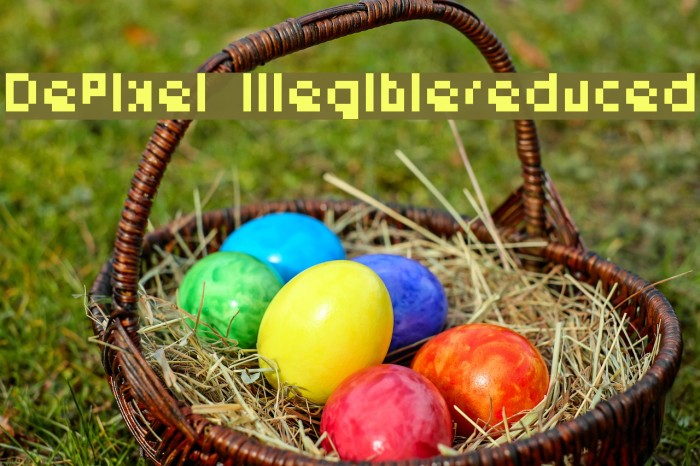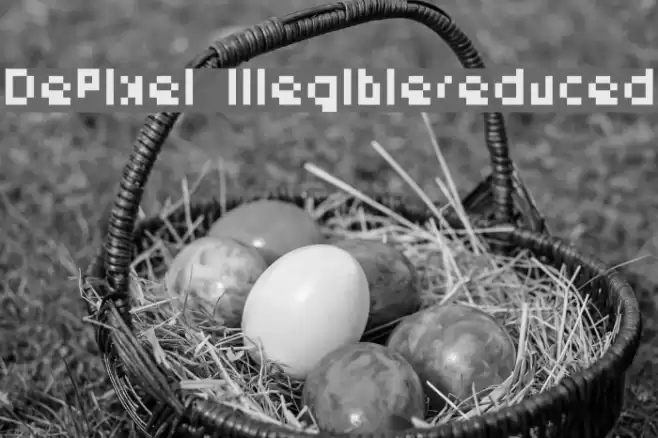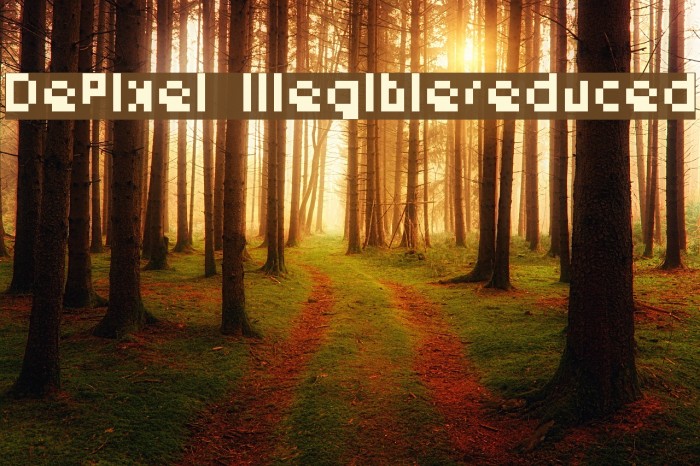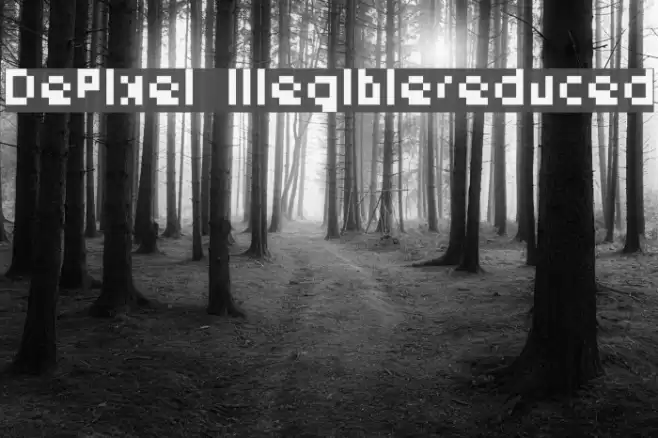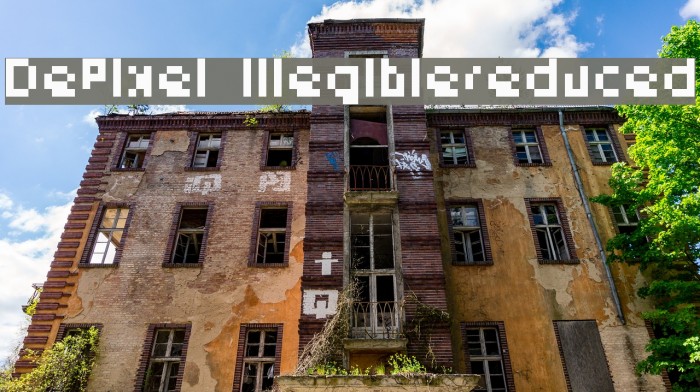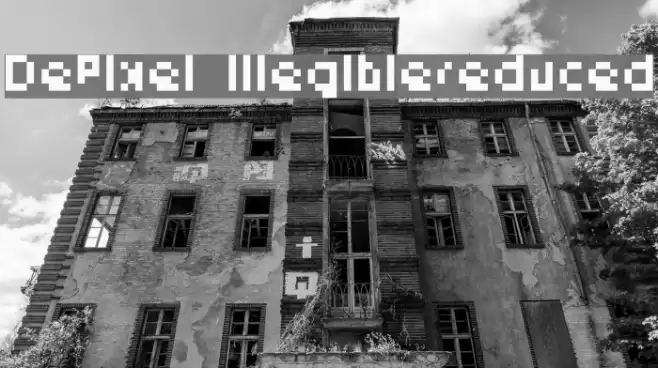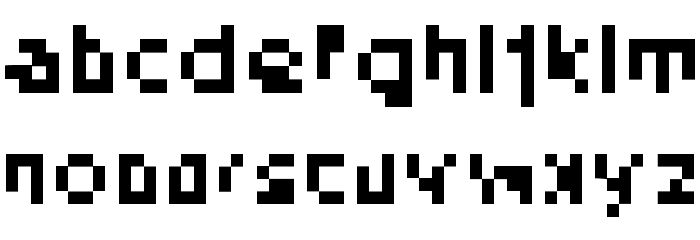
DePixel-Illegiblereduced Font
DePixel-Illegiblereduced Description
This font features a pixelated, blocky design reminiscent of early digital or video game typography. Each character is composed of square pixels, creating a retro and digital aesthetic. The uppercase and lowercase letters maintain a consistent height, with minimal variation in width, emphasizing a uniform, grid-like structure. The numbers and special characters follow the same pixelated style, ensuring a cohesive look across all glyphs. This font's simplicity and geometric form make it ideal for projects that require a nostalgic or tech-inspired theme.
A pixelated, retro-style font with a blocky, digital appearance from Uncategorized fonts.
- Proposed Projects: Ideal for video game design, retro-themed graphics, digital art projects, and tech-related branding.
- Overall Style: Retro, Digital
- Use Case: Headlines, Logos, Digital Art